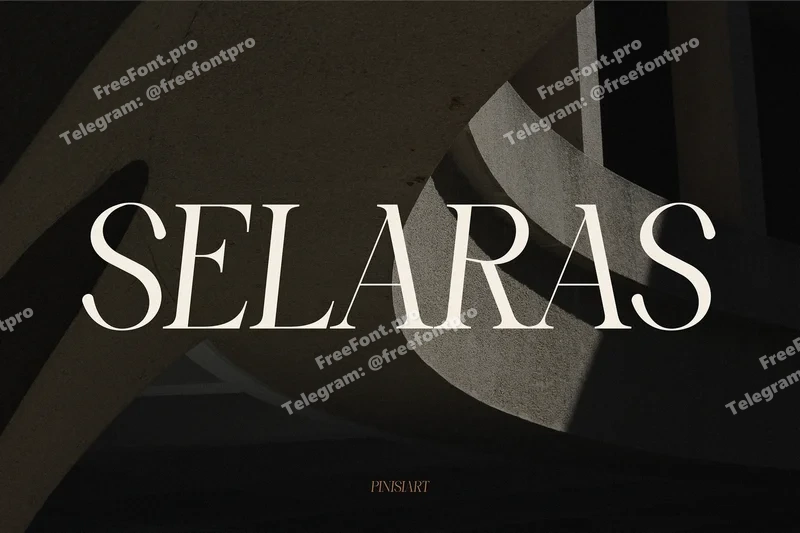
Selaras – Modern Elegant Font
Selaras Font is an elegant modern serif typeface inspired by architectural rhythm and spatial harmony. With high contrast strokes, sleek serifs, and refined curves, Selaras embodies a balance between structural strength and aesthetic softness. Its graceful proportions and subtle movement make it ideal for projects seeking sophisticated visual clarity. Perfectly suited for modern editorials, architecture magazines, and luxury branding, it brings a sense of calm refinement to any design composition.
Selaras was designed for architects, designers, and brands who value clarity, balance, and timelessness. It performs beautifully in editorial layouts, branding identities, interior design portfolios, and lifestyle magazines, where form and meaning coexist. Whether for a headline in a minimalist layout or a refined logo for a luxury brand, Selaras communicates confidence, sophistication, and modern artistry.
Key Features :
High contrast serifs with fluid terminal detailing
Modern letter spacing ideal for headline harmony
Flawless in large display use and editorial composition
Balances visual stability with subtle expressiveness
Optimized for clarity and readability
Smooth character flow for seamless design integration